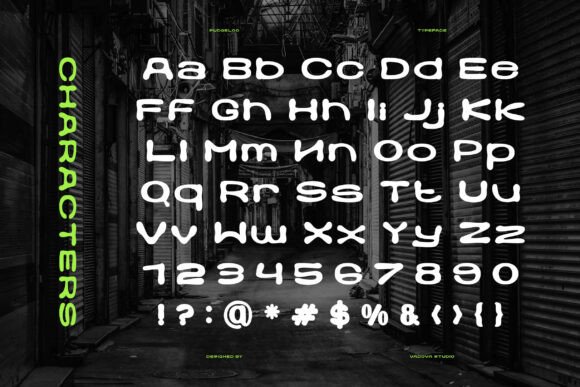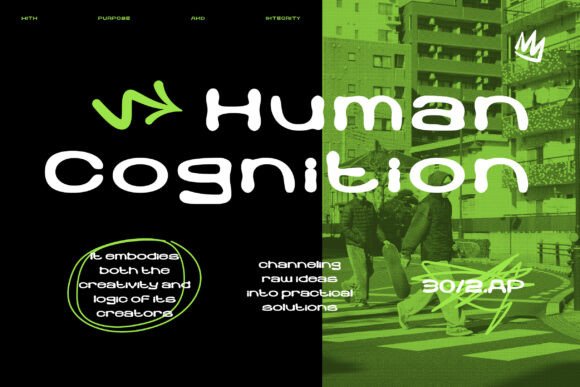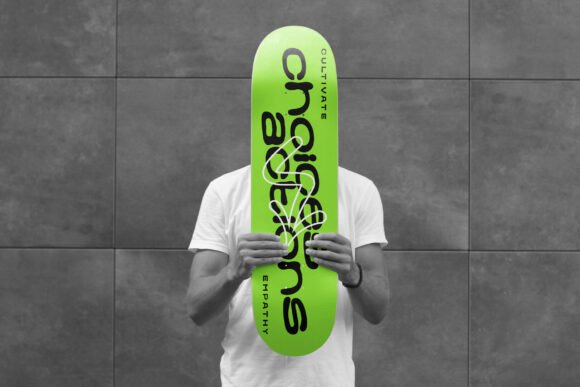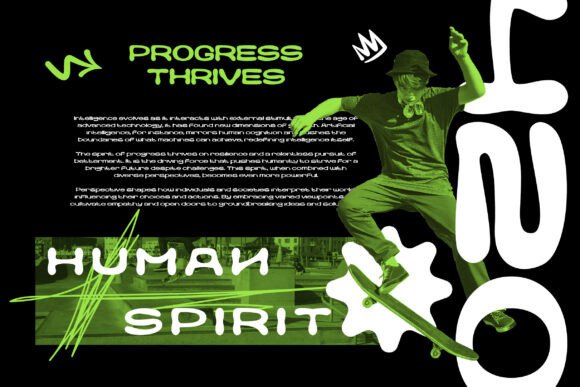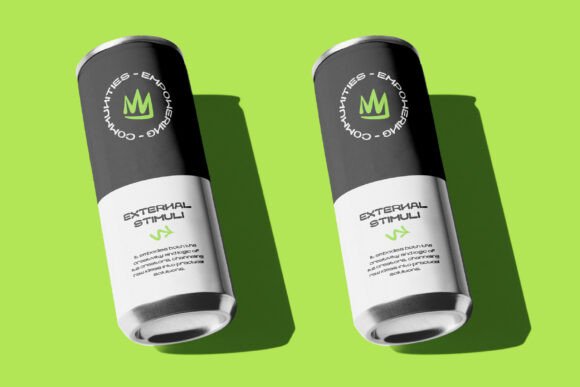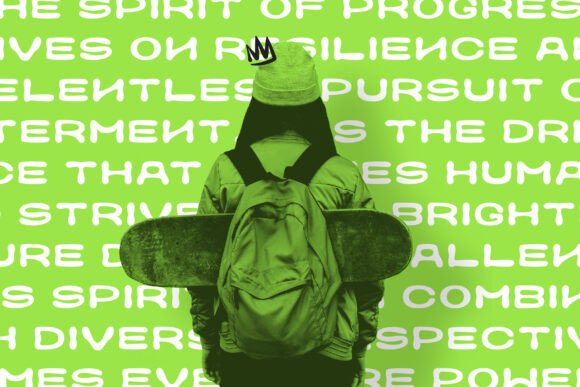
Introduction to Pudgeloo Font
As a designer, there’s nothing quite like the thrill of discovering a new font that sparks creativity and pushes the boundaries of visual expression. It’s that moment when the perfect typeface comes along and transforms your entire design project. For those who crave that magic, we’re excited to introduce you to the Pudgeloo Font – a modern and experimental display font that’s about to revolutionize the way you approach design.
This innovative font is a masterclass in balance and contrast, featuring soft bubble-like curves that dance across the page with a sense of fluidity and motion. Whether you’re working on a tech-driven campaign, a creative poster, or innovative product packaging, the Pudgeloo Font is the perfect design resource for anyone looking to break conventions and make a lasting impression.
- Features a unique and playful style, making it a great addition to any design project
Honest Review: Pudgeloo Font
I recently stumbled upon the Pudgeloo Font, and I must say it’s been a game-changer for my design projects. As a designer, I’m always on the lookout for high-quality design resources that can elevate my work, and the Pudgeloo Font definitely delivers.
- ✨ High-quality design: The Pudgeloo Font boasts a unique, hand-drawn aesthetic that adds a touch of creativity to any project.
- ⚠️ Limited font styles: While the Pudgeloo Font is available in a few different weights, I wish there were more options to choose from.
- ⚠️ Not ideal for body text: Due to its unique design, the Pudgeloo Font may not be the best choice for body text, as it can be difficult to read.
Overall, I’m thoroughly impressed with the Pudgeloo Font. It’s a fantastic addition to my design resource library, and I’m excited to see how it will enhance my creative projects. If you’re a designer looking for a high-quality, free font to spice up your work, the Pudgeloo Font is definitely worth checking out.
The Pudgeloo Font is ideal for various creative projects, including:
Compared to Pudgeloo Font, Great Vibes has a more refined and polished look, with more consistent line widths and a wider range of letterforms. While Pudgeloo Font is more playful and whimsical, Great Vibes is better suited for formal and professional designs.